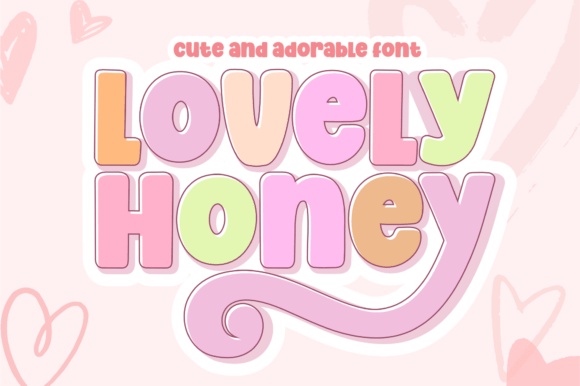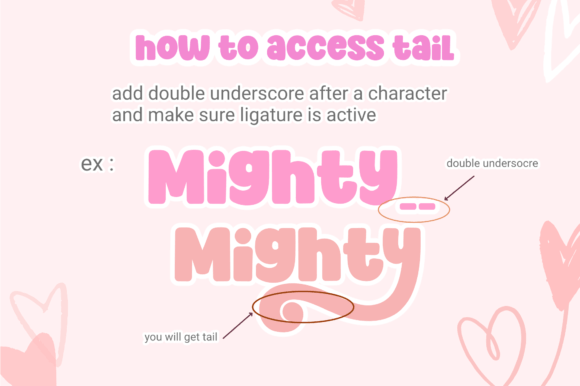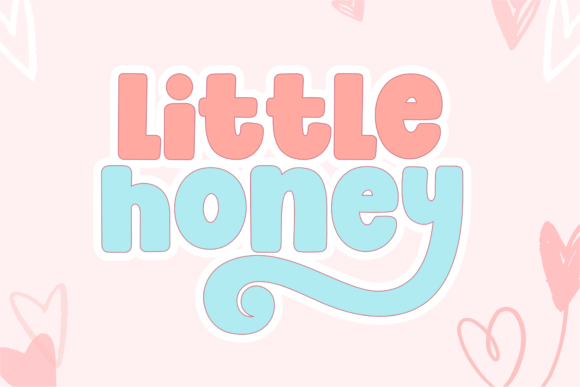
Lovely Honey Font
Lovely Honey is a fun and creative new font that is adorably cute yet bold enough for all font occasions! Come with cute tail make your design is unique.
We love it’s quirky characters and you can combine them to create unique looks! Have fun playing!